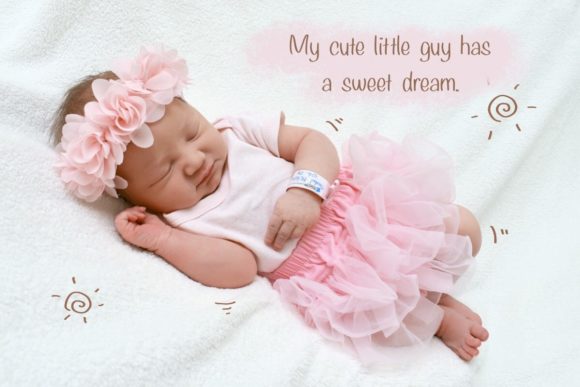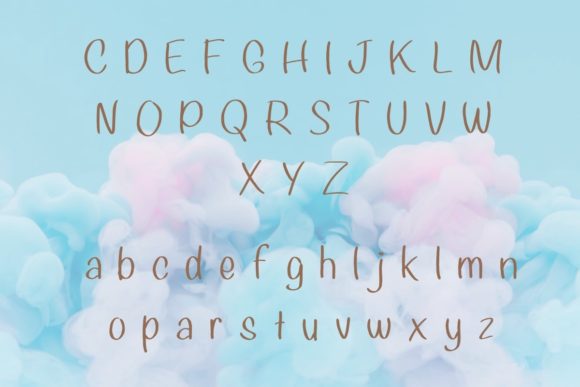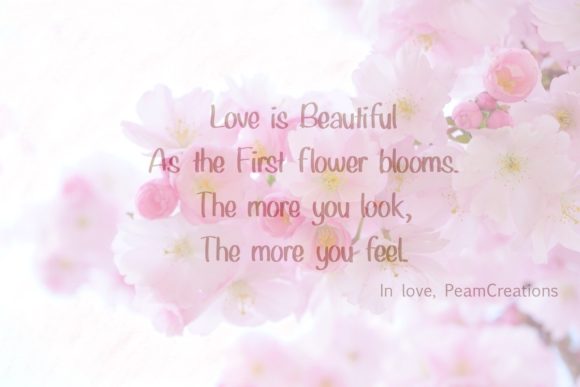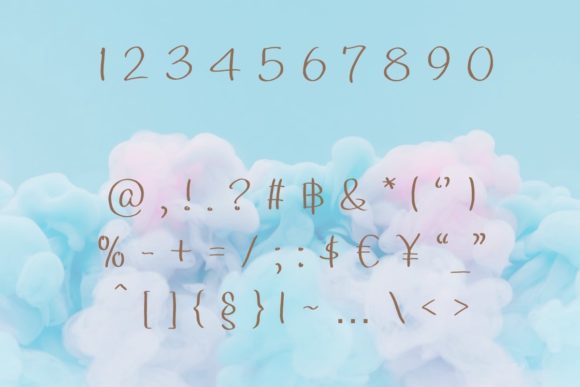
Discover the Charm of Brighton Font: Elevate Your Designs with a Simple yet Friendly Handwritten Style
Are you on the hunt for a font that can add a touch of warmth and personality to your designs? Look no further than Brighton Font, a simple lettered, light, and friendly handwritten font that is sure to become an incredible asset to your font library. With its lovely style and versatility, Brighton Font has the potential to elevate any creation, regardless of the topic or theme.
What Makes Brighton Font So Special?
Brighton Font boasts a unique and charming handwritten style that is both light and friendly. Its simplicity makes it an excellent choice for a wide range of design projects, from digital and print materials to crafts and DIY projects. The font’s friendly demeanor ensures that it can connect with your audience on a personal level, making it perfect for designs that require a touch of warmth and approachability.
Key Features of Brighton Font
• Simple and Elegant Design: Brighton Font features a clean and elegant design that makes it easy to read and understand.
• Light and Friendly: The font’s light and friendly style ensures that it can add a touch of warmth and personality to your designs.
• Versatile: Brighton Font is versatile and can be used for a wide range of design projects, from digital and print materials to crafts and DIY projects.
• Handwritten Style: The font’s handwritten style gives it a personal and unique touch that sets it apart from other fonts.
How to Use Brighton Font in Your Designs
Brighton Font is incredibly easy to use and can be incorporated into your designs in a variety of ways. Here are a few ideas to get you started:
• Digital Materials: Use Brighton Font in your digital materials, such as social media graphics, blog posts, and email newsletters.
• Print Materials: Add a touch of warmth and personality to your print materials, such as brochures, flyers, and business cards.
• Crafts and DIY Projects: Use Brighton Font in your crafts and DIY projects, such as handmade cards, gift tags, and scrapbooking.
Why Designers and Crafters Love Brighton Font
Designers and crafters love Brighton Font for its unique and charming style. Here are a few reasons why:
• Easy to Read: Brighton Font is easy to read, making it perfect for designs that require a clear and concise message.
• Versatile: The font’s versatility ensures that it can be used for a wide range of design projects.
• Unique Style: Brighton Font’s unique handwritten style sets it apart from other fonts and adds a touch of personality to designs.
Tips for Getting the Most Out of Brighton Font
Here are a few tips for getting the most out of Brighton Font:
• Experiment with Different Sizes: Experiment with different font sizes to find the perfect size for your design.
• Pair with Other Fonts: Pair Brighton Font with other fonts to create a unique and visually appealing design.
• Use in Combination with Images: Use Brighton Font in combination with images to add a touch of warmth and personality to your designs.
Brighton Font is a simple yet friendly handwritten font that is sure to become an incredible asset to your font library. With its lovely style and versatility, it has the potential to elevate any creation and add a touch of warmth and personality to your designs. Whether you’re a designer or crafter, Brighton Font is a must-have font that is sure to inspire and delight.